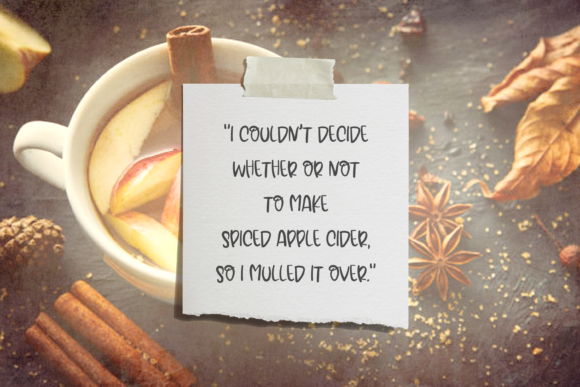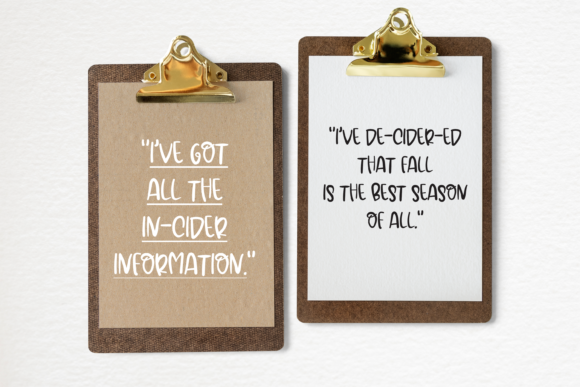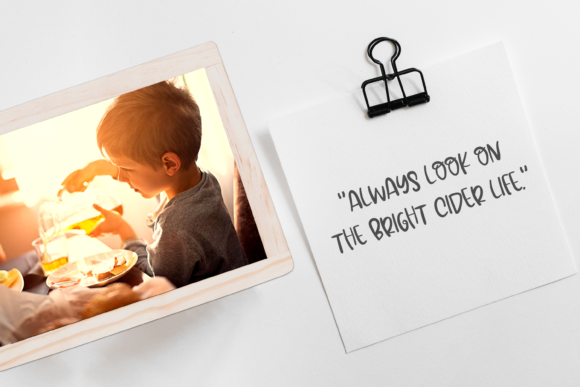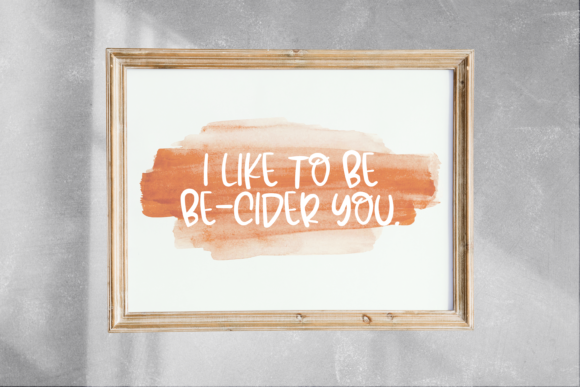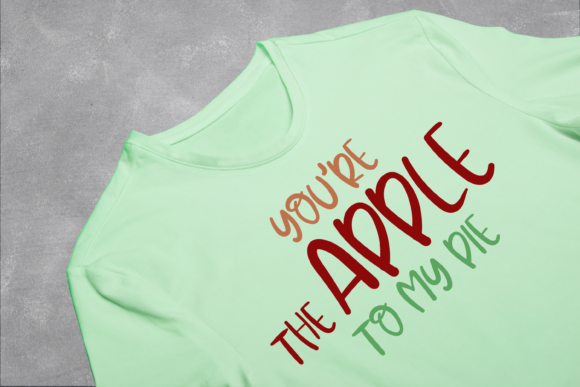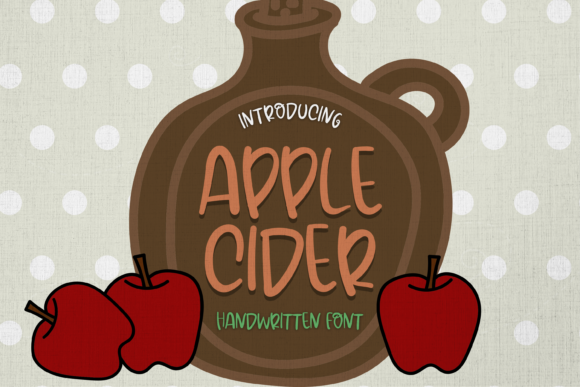
Introducing Apple Cider Font: The Perfect Addition to Your Design Collection
Are you a designer or crafter looking for a unique and versatile font to elevate your creative projects? Look no further than Apple Cider Font, a charming and simple handwritten font that’s perfect for a wide range of designs. With its natural and distinctive style, Apple Cider Font is sure to inspire your imagination and take your projects to the next level.
The Charm of Apple Cider Font
Apple Cider Font is a beautifully crafted handwritten font that’s designed to add a touch of warmth and personality to your designs. Its cute and simple style makes it incredibly approachable, while its unique flair ensures that it stands out from more generic fonts. Whether you’re creating invitations, branding materials, or digital content, Apple Cider Font is the perfect choice for adding a dash of whimsy and charm.
One of the best things about Apple Cider Font is its incredible versatility. Its natural and effortless style makes it suitable for a wide range of designs, from rustic and vintage-inspired projects to modern and playful ones. The only limit is your imagination! Use Apple Cider Font to:
- Create adorable invitations and party decorations for kids’ birthday parties or baby showers
- Design eye-catching branding materials, such as logos, business cards, and brochures, for crafty or artisanal businesses
- Add a personal touch to your digital content, including social media graphics, blog posts, and email newsletters
- Develop unique and engaging educational materials, such as worksheets, activity sheets, and posters
Why Choose Apple Cider Font?
So, what sets Apple Cider Font apart from other fonts? Here are just a few reasons why designers and crafters love this charming font:
- Unique style: Apple Cider Font has a distinctive, handwritten style that’s both cute and sophisticated.
- Easy to read: Despite its playful style, Apple Cider Font is incredibly legible, making it perfect for both digital and print designs.
- Versatile: Apple Cider Font can be used for a wide range of designs, from formal to informal, and from digital to print.
- Imagination-friendly: With Apple Cider Font, the possibilities are endless – let your imagination run wild and create something truly unique!
Tips for Using Apple Cider Font
To get the most out of Apple Cider Font, here are a few tips to keep in mind:
- Experiment with colors: Apple Cider Font looks great in a variety of colors, from bright and bold to soft and pastel.
- Play with textures: Add some extra depth and interest to your designs by combining Apple Cider Font with different textures, such as paper, fabric, or wood.
- Mix and match: Don’t be afraid to pair Apple Cider Font with other fonts or graphics to create a unique and eye-catching design.